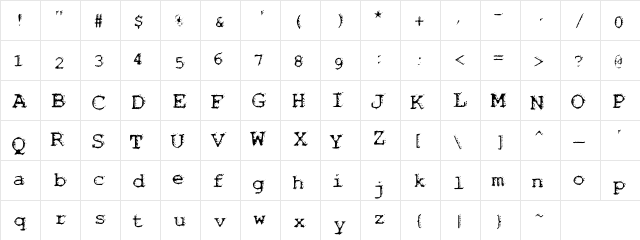
Noisebaby Regular
Design Context for Noisebaby Typeface
Noisebaby takes a measured approach to typography — its balanced proportions and neutral character make it a reliable workhorse for both digital and print work.